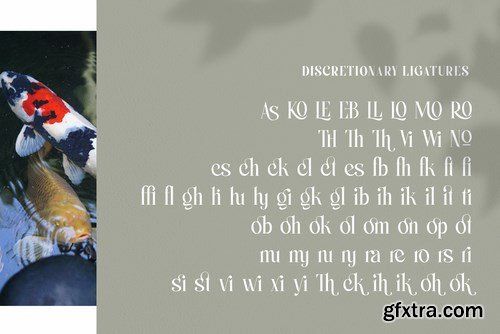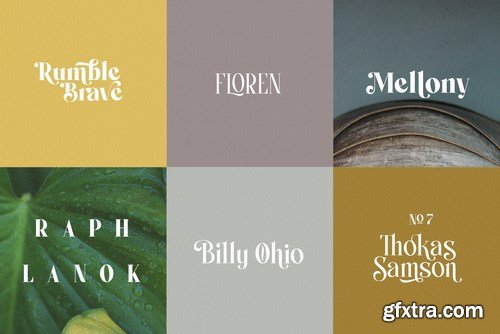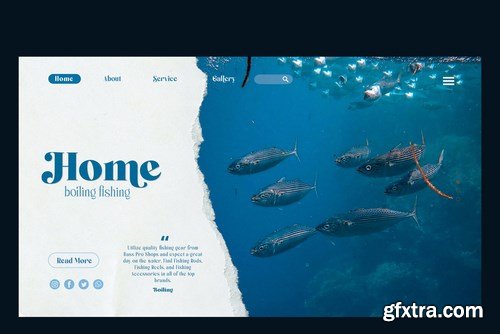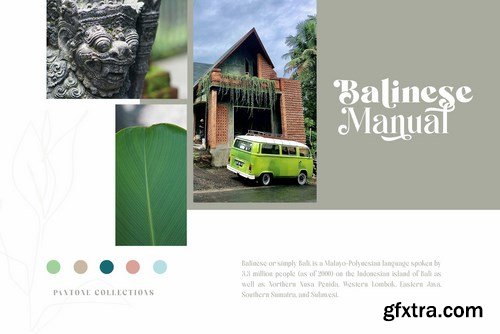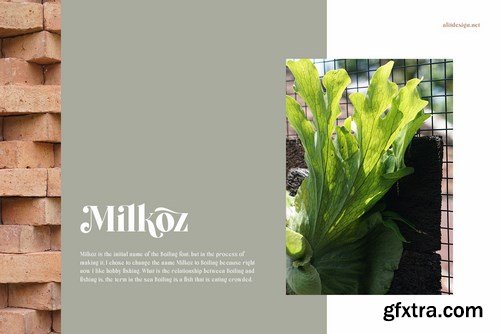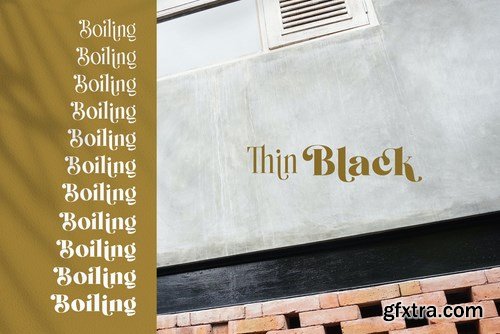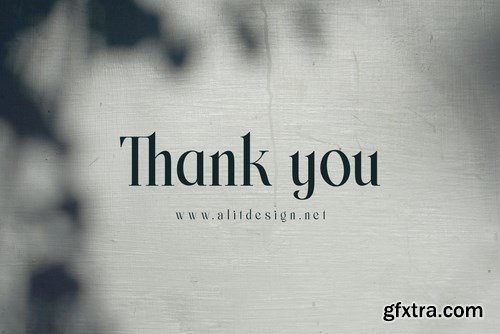
Introducing the family of boiling fonts by Alit Design. This font looks elegant and is very cool to use to support your current design. Because bold font style like this has become a trend in 2020 now. Besides you get thick series, you also get many more font styles to thin styles. All letter characters are very easy to combine with modern minimalist design concepts. In addition to the alternative swash until (ss05), there are also many discretionary ligature choices that are unique and easy to read.
Boiling fonts have 11 families from Thin to Black all of which can be applied to design concepts that are at work or become your unique serif font collection. In the future, alternatives, swash, ligature or a new style of Boiling font will be developed. Besides this font already contains Unicode and PUA so it can be used in design or non-design applications.